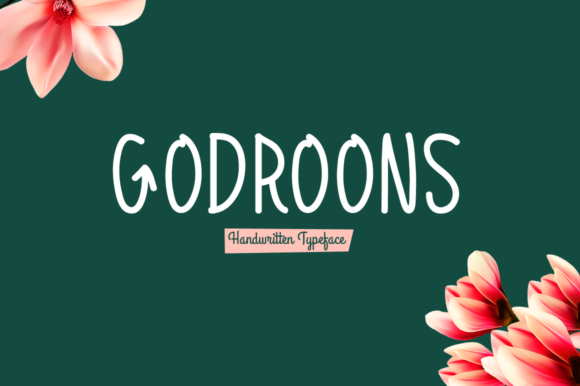
Introducing the Godroons Script Font - Unleash Your Creative Spirit and Add a Personal Touch to Your Designs
Welcome to the world of Godroons, a captivating handwritten font that offers a playful and distinctive touch to your creative projects. This exquisite script font, meticulously crafted by the talented team at Spanking Fonts, will elevate your designs with its expressive and charming personality.
With Godroons, you'll embark on a journey of artistic exploration, discovering endless possibilities to bring your ideas to life. Whether you're a seasoned designer or just starting your creative adventure, Godroons will be your trusty companion, guiding you through the realm of typography with its playful and delightful style.
Imagine the joy of crafting personalized stationery that exudes a unique charm, or creating logos that captivate audiences with their playful elegance. Unleash your inner artist and design t-shirts, papers, and print designs that speak volumes about your creativity. With Godroons, every project becomes a canvas for your imagination to soar.
Envision website headers that dance with a playful rhythm, photo frames that add a touch of personality to your cherished memories, and flyers that command attention with their vibrant energy. Let Godroons be your muse as you create music covers, posters, and image sliders that ignite the senses and leave a lasting impression.